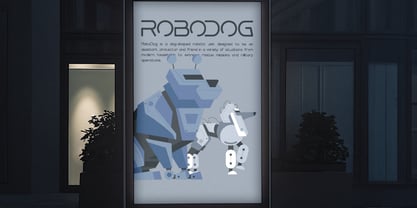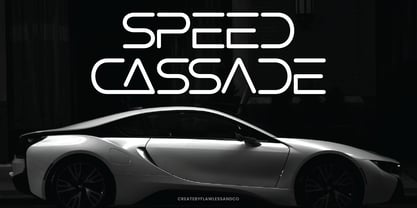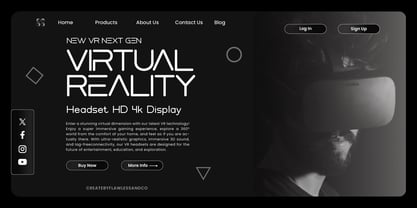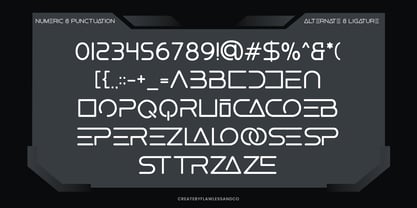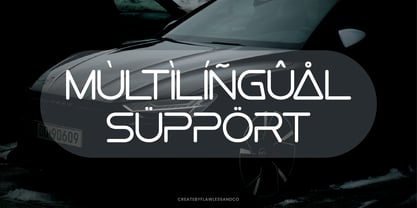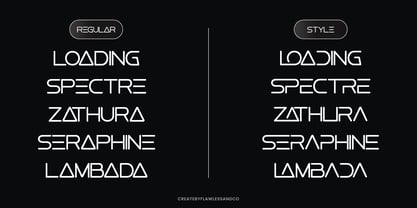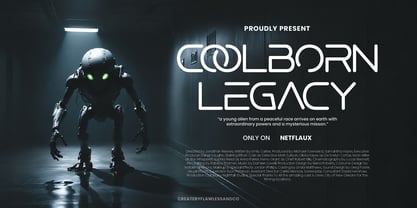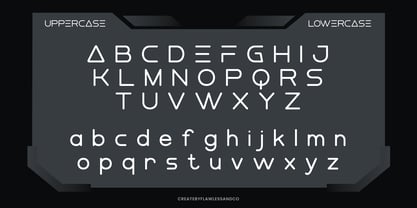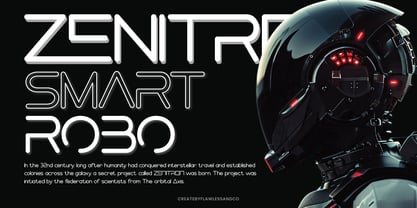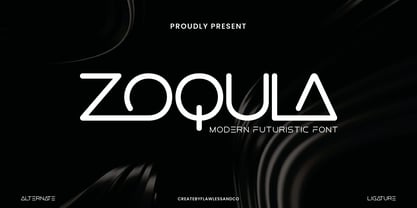
Zoqula
por Flawlessandco
La familia tipográfica Zoqula fue diseñada por Achmad Yani y publicada por Flawlessandco. Zoqula contiene 1 estilos. Más información sobre esta familia
Zoqula is a futuristic sans serif font that fuses sleek minimalism with bold sci-fi aesthetics. Inspired by cyberpunk visions and high-tech interfaces, Zoqula features sharp angles, wide letterforms, and a distinct geometric structure that gives it a powerful, modern presence. Designed for digital-forward design projects such as tech branding, game titles, user interfaces, and experimental posters, Zoqula brings a cutting-edge and visionary style to any layout. Every character is shaped with precision and impact, giving your typography a clean yet commanding voice. The font includes dynamic alternates and unique ligatures, allowing you to push your creative boundaries and add futuristic flair to your designs.
Multilingual, Uppercase alphabet A-Z, Lowercase alphabet a-z, Numbers 0-9, Some punctuation, Alternates & Ligatures